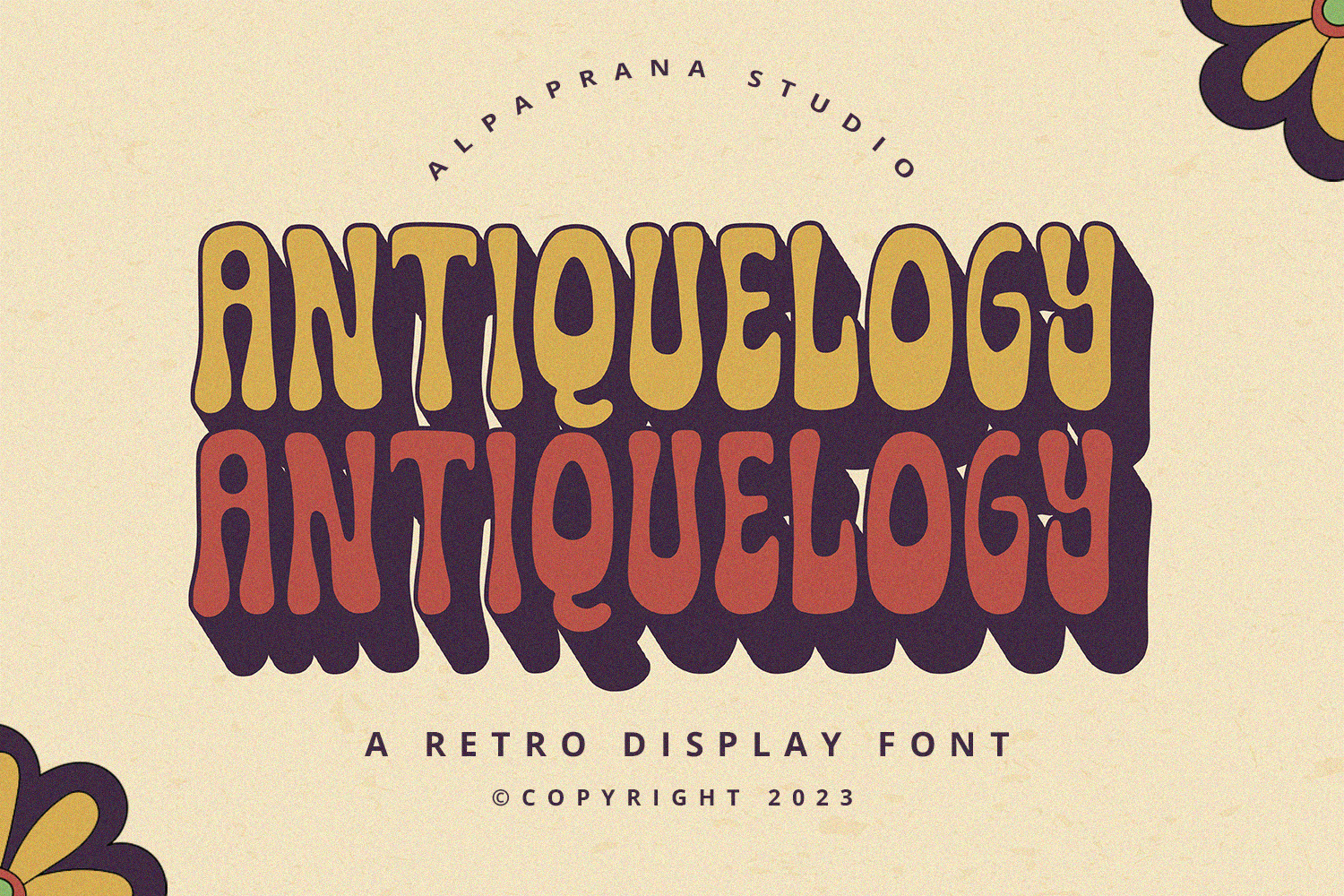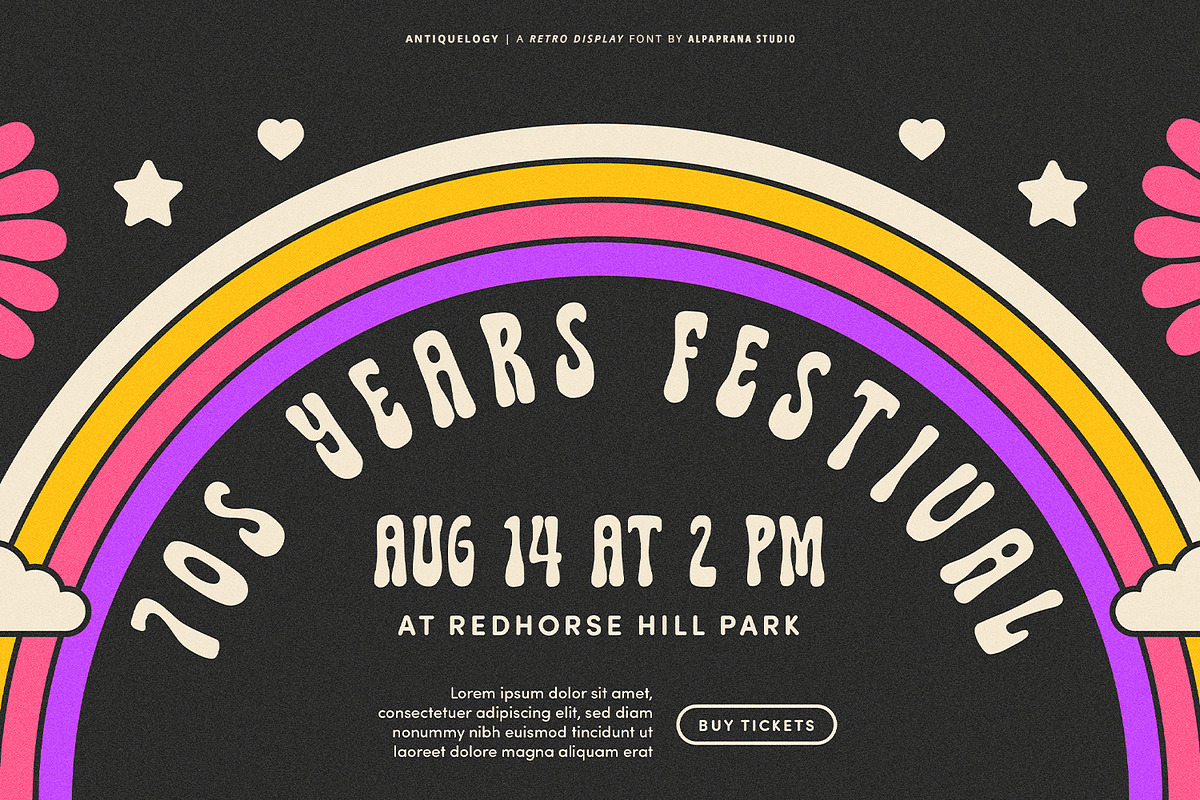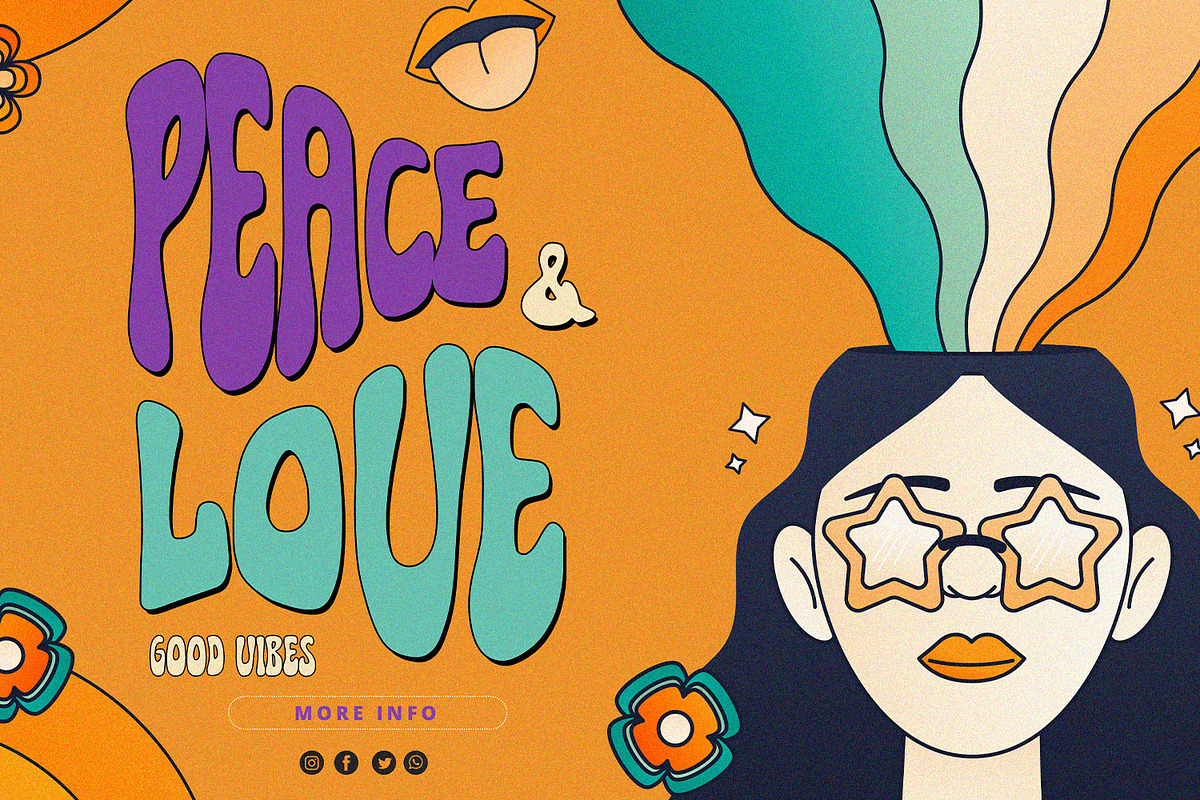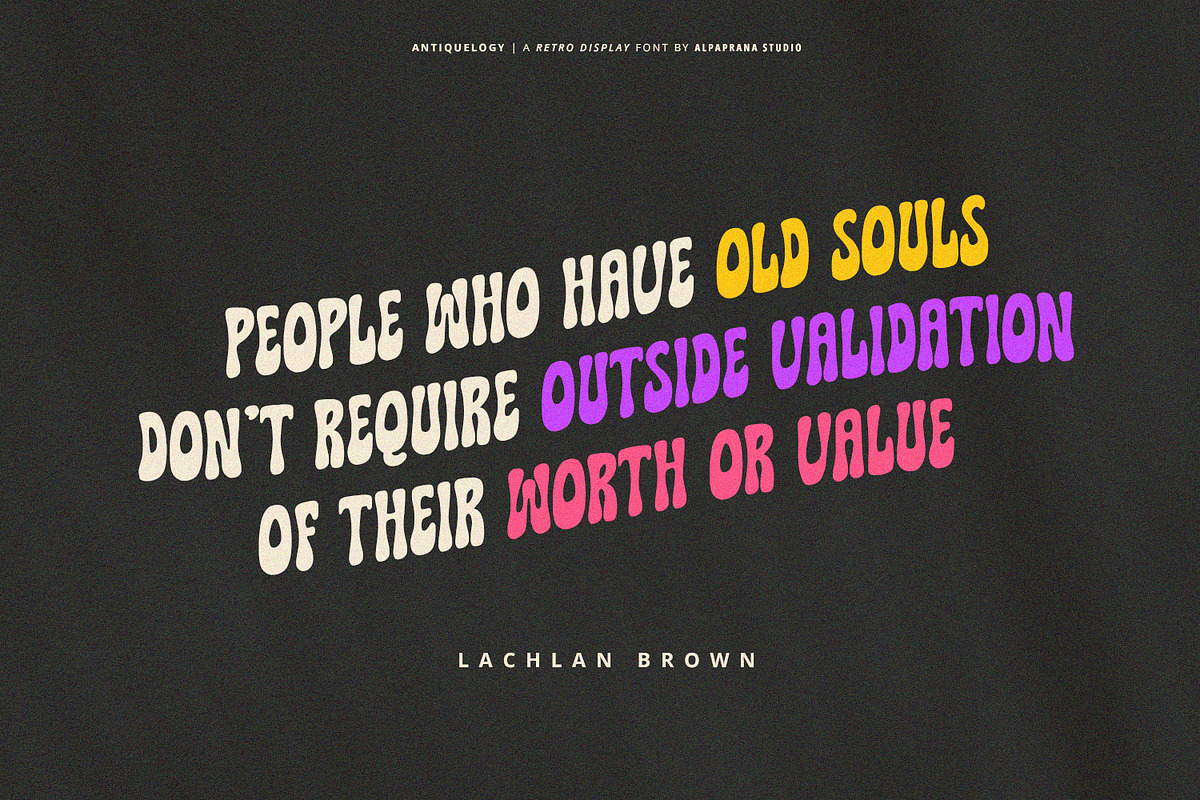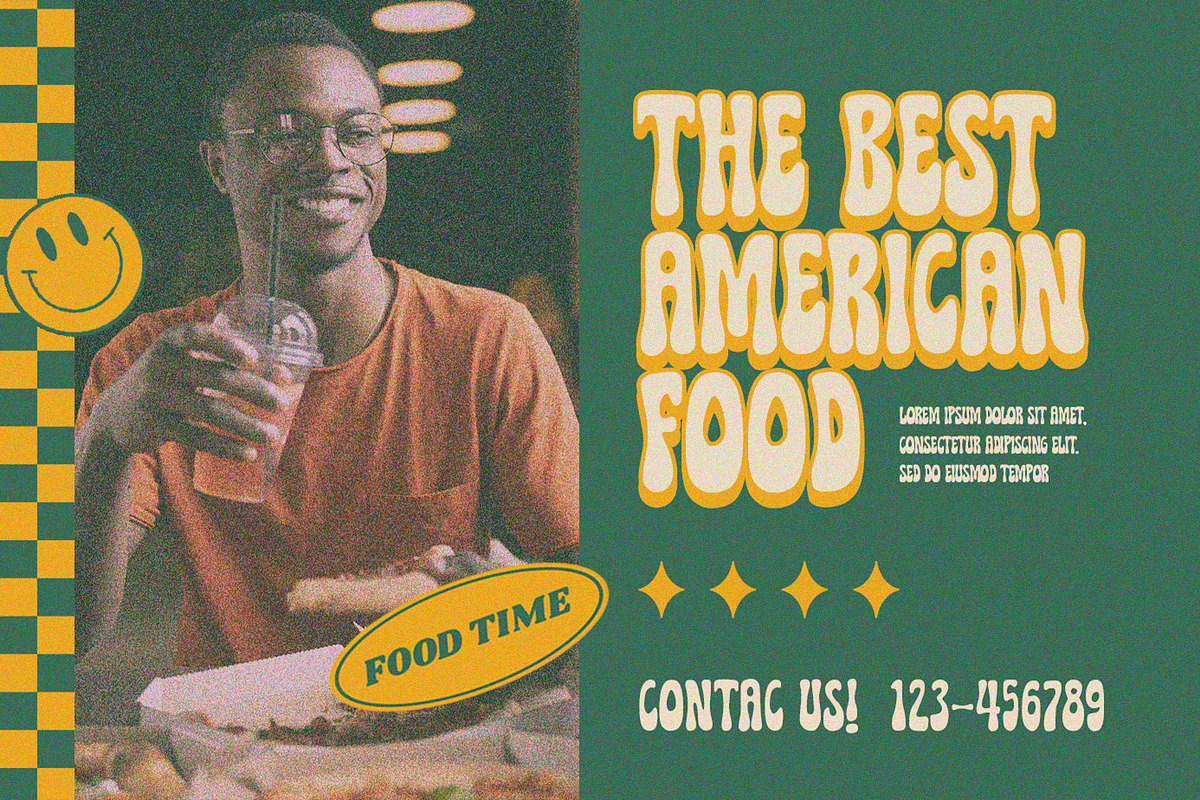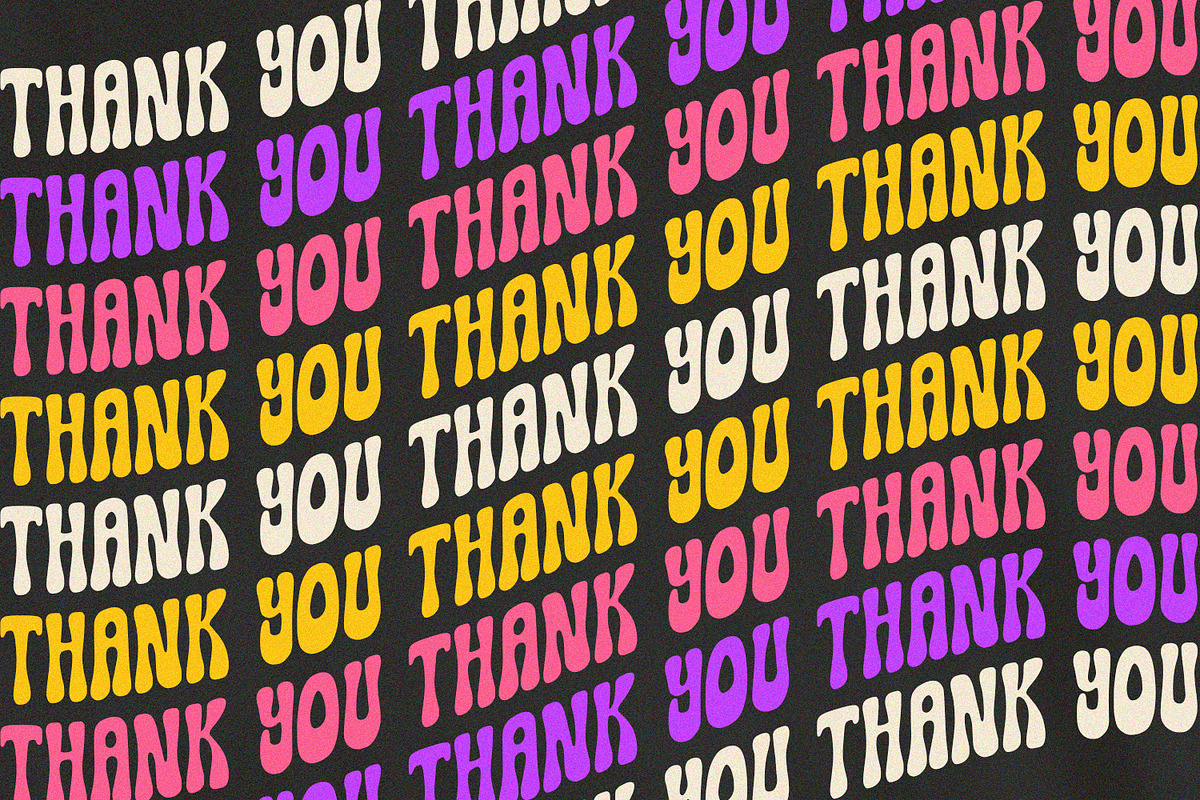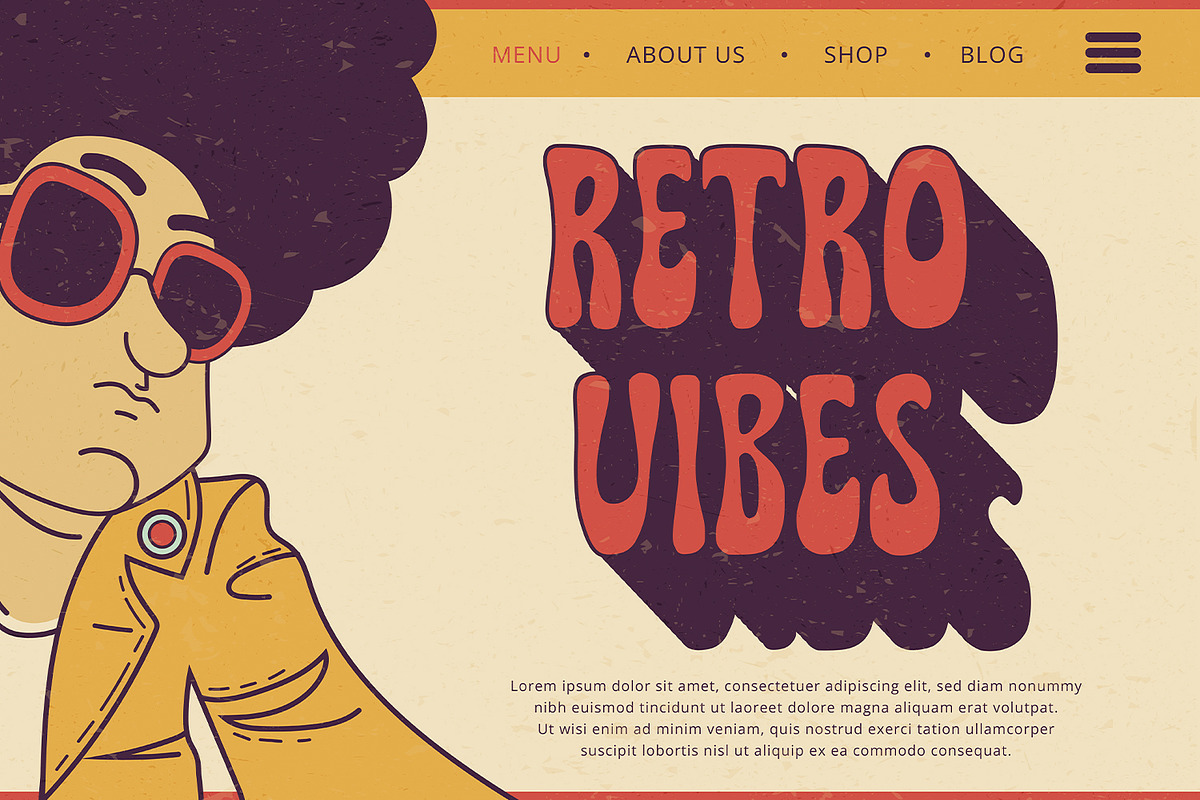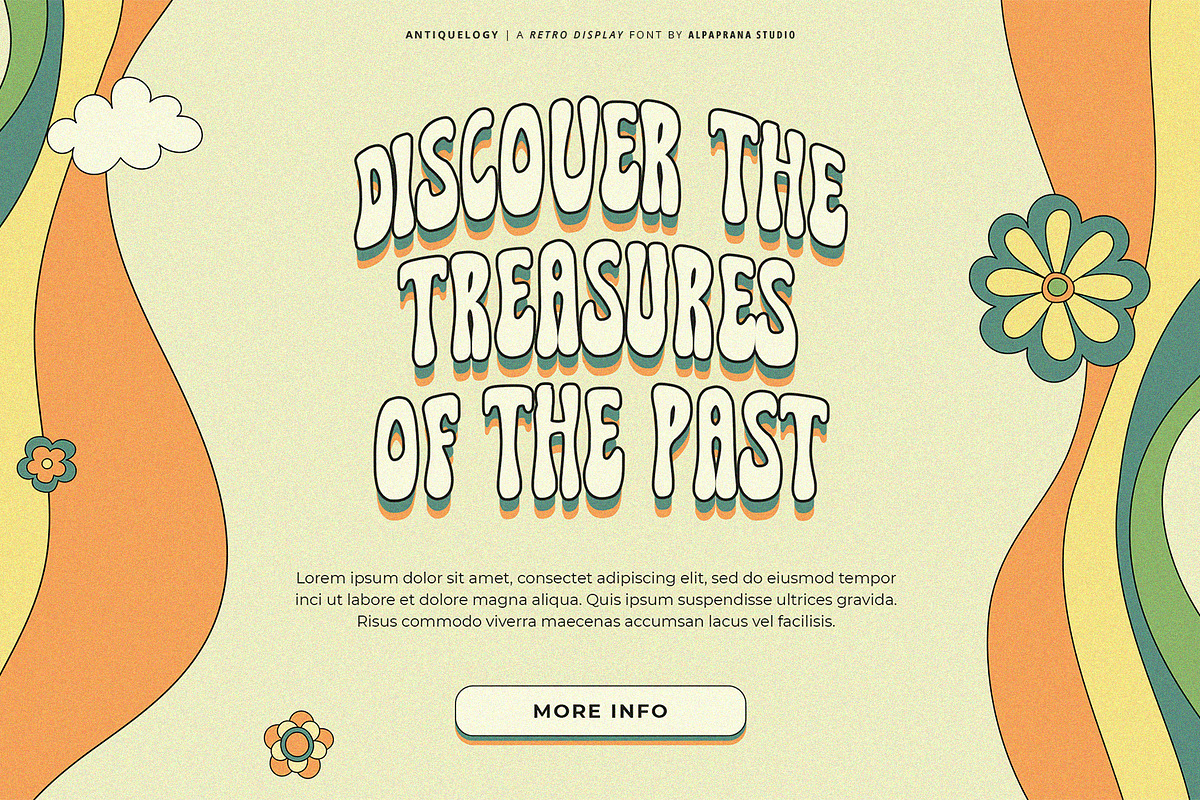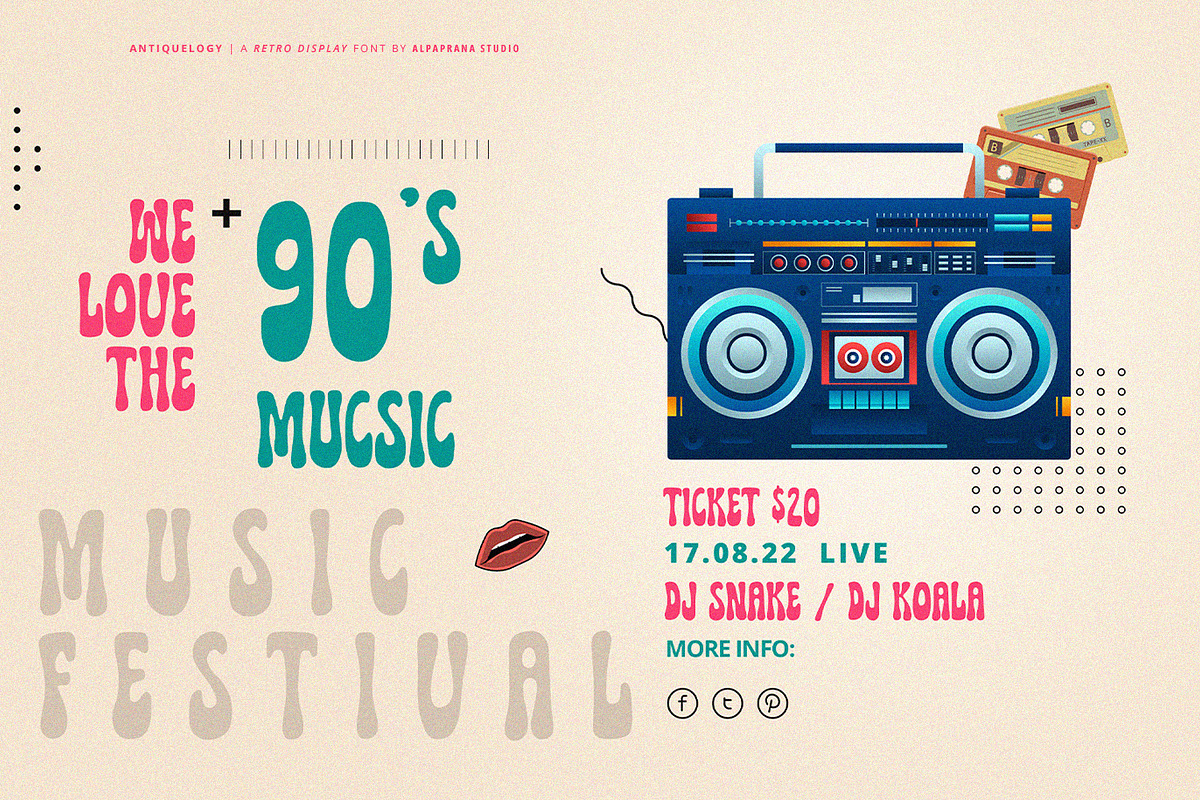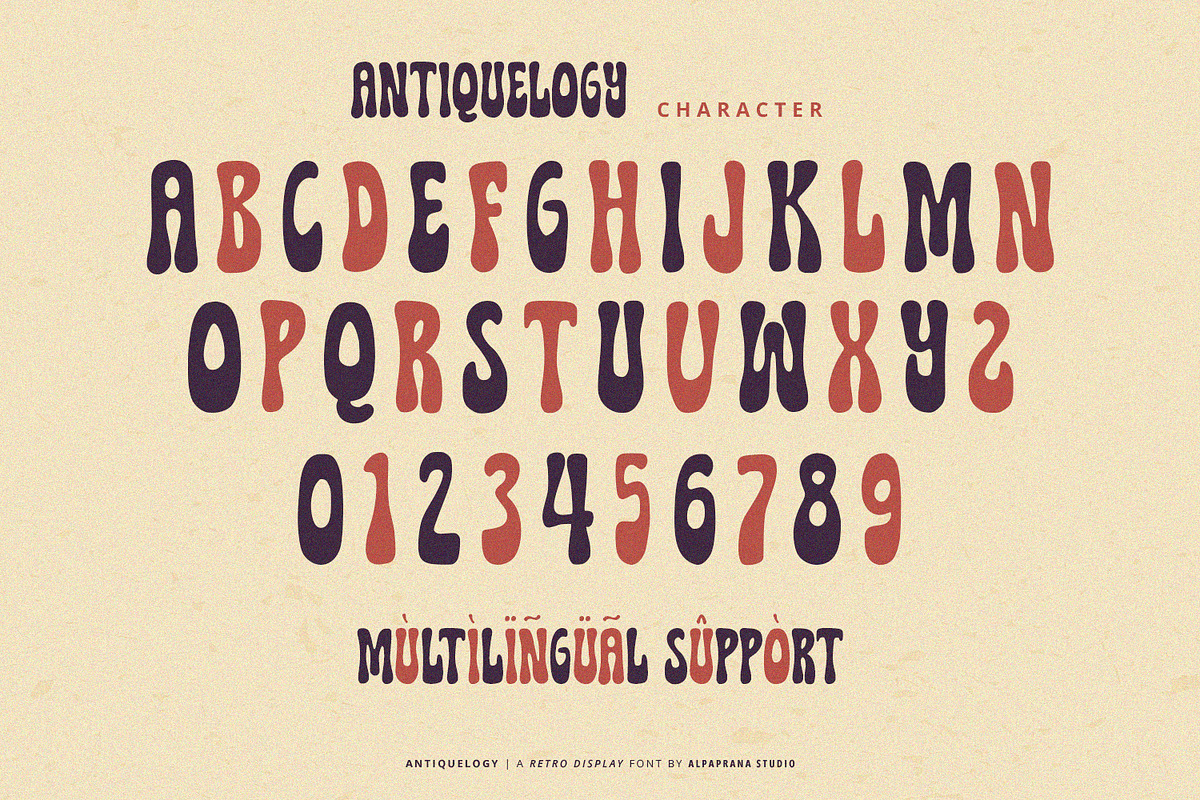
Antiquelogy - Retro Font
Antiquelogy is a retro display font with natural and vintage feels. It will be perfectly used for Branding, Logo Design, Lettering, Logotype, Clothing, Poster, magazine, packaging, posters, shopping bags, t-shirts, book covers, photography, special events and other design project.